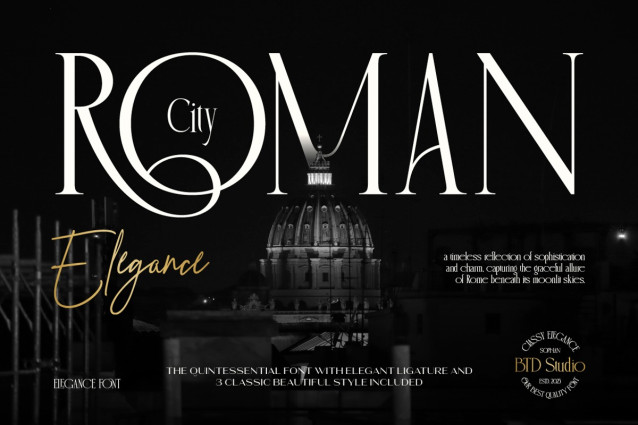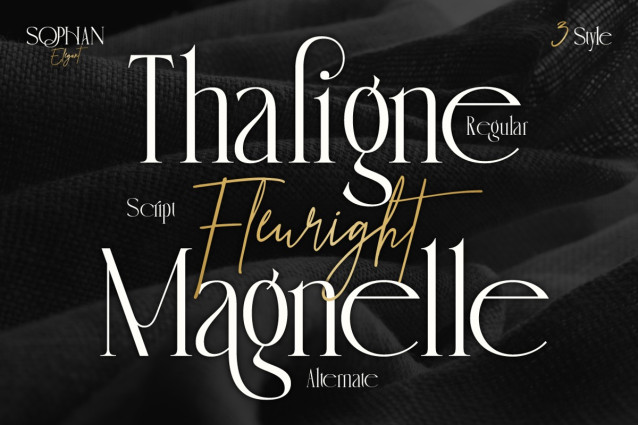
Sophan Font Duo
Sophan Font Duo a refined typeface that embodies timeless sophistication and modern grace. Designed with exquisite ligatures and smooth curves, Sophan brings a touch of luxury to every word you create. This font family includes three stunning styles — Regular, Alternate, and Script — perfectly balanced for high-end branding, editorial designs, logo projects, or elegant packaging. Its delicate serifs and graceful letterforms evoke the charm of European classic typography, wrapped in a contemporary feel. From fashion magazines to boutique logos, Sophan Elegant elevates your design with a whisper of class and a statement of style.